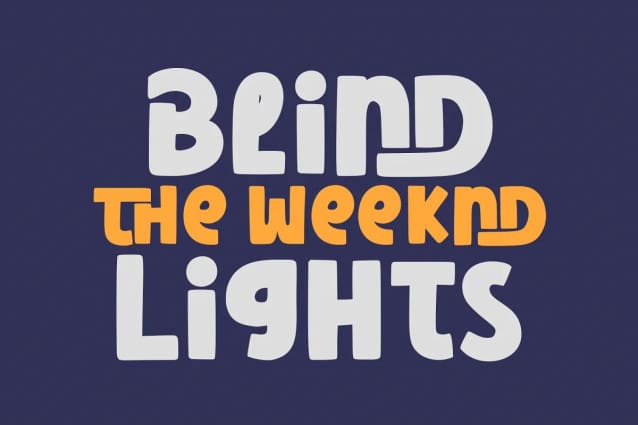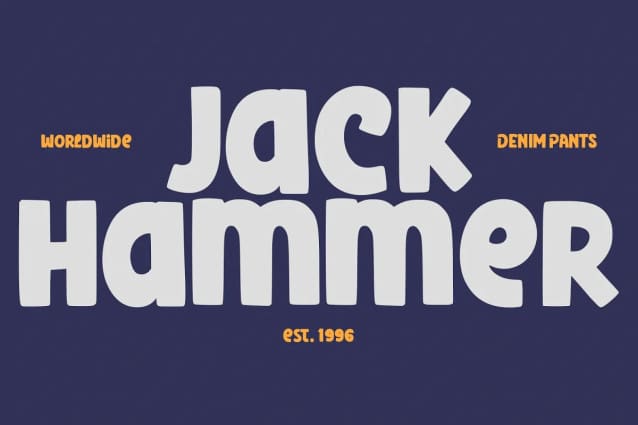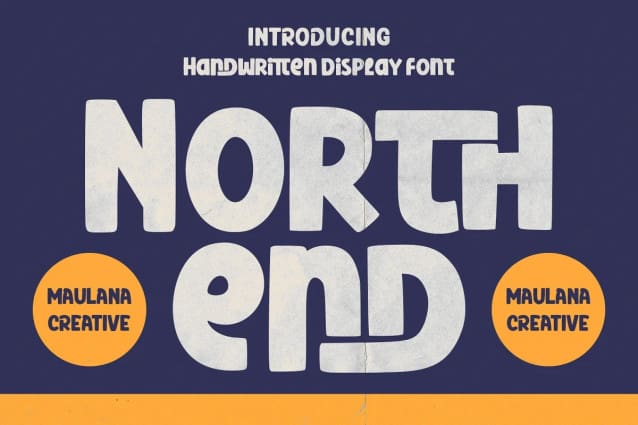
Northend Font
Northend Font is a modern handwritten display font. With bold stroke, fun character with a bit of ligatures. To give you an extra creative work. Northend font support multilingual more than 100+ language. This font is good for logo design, Social media, Movie Titles, Books Titles, a short text even a long text letter and good for your secondary text font with sans or serif. Make a stunning work with Northendfont.